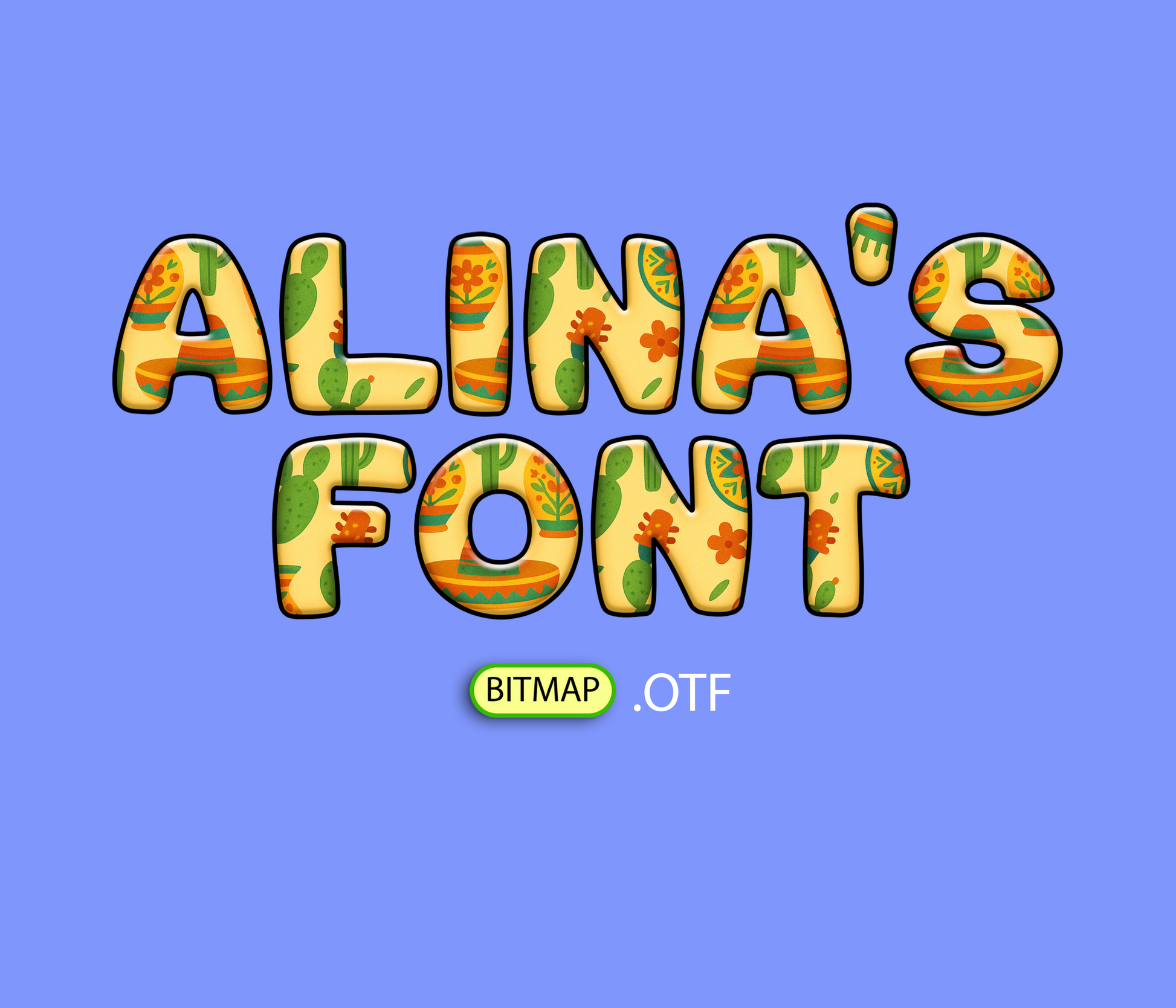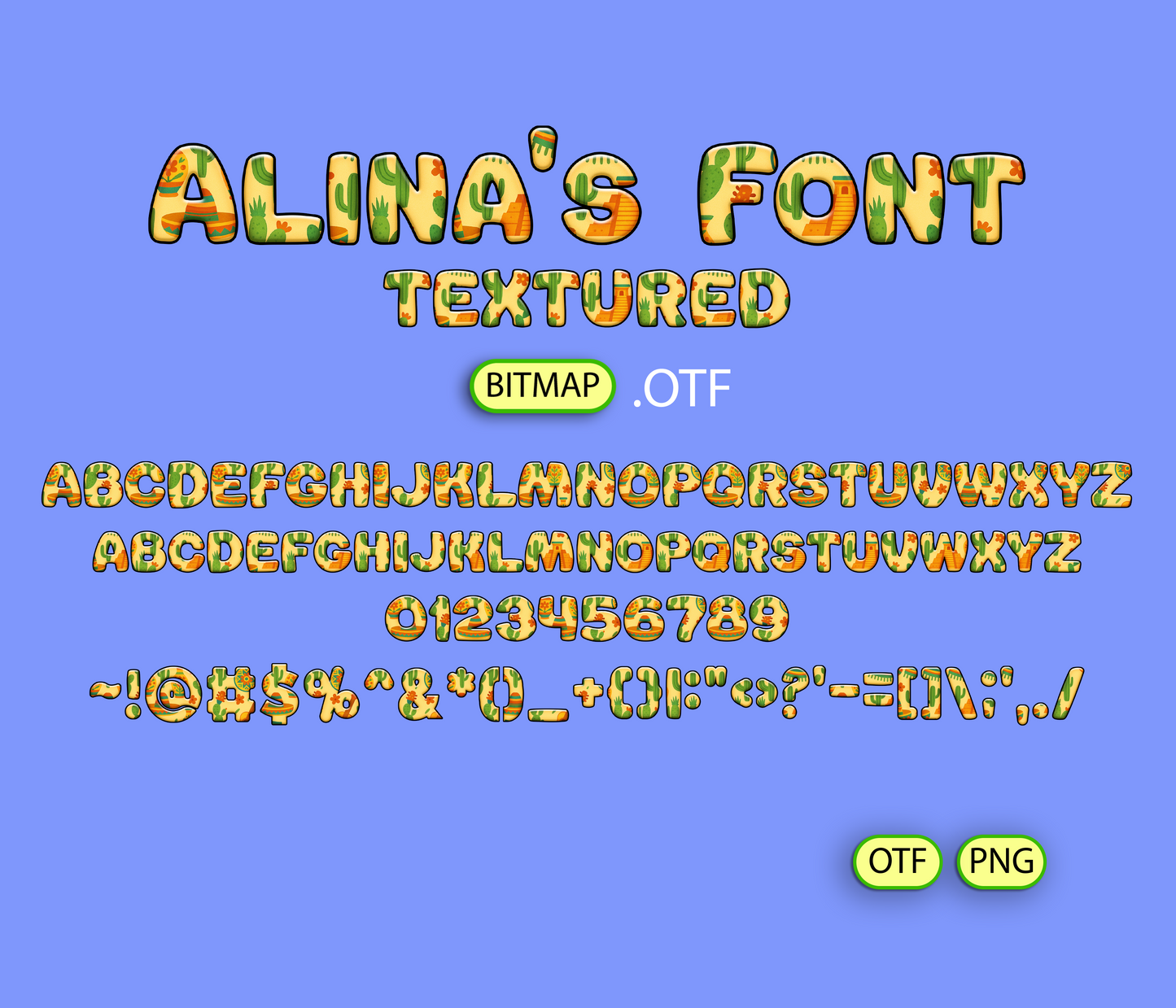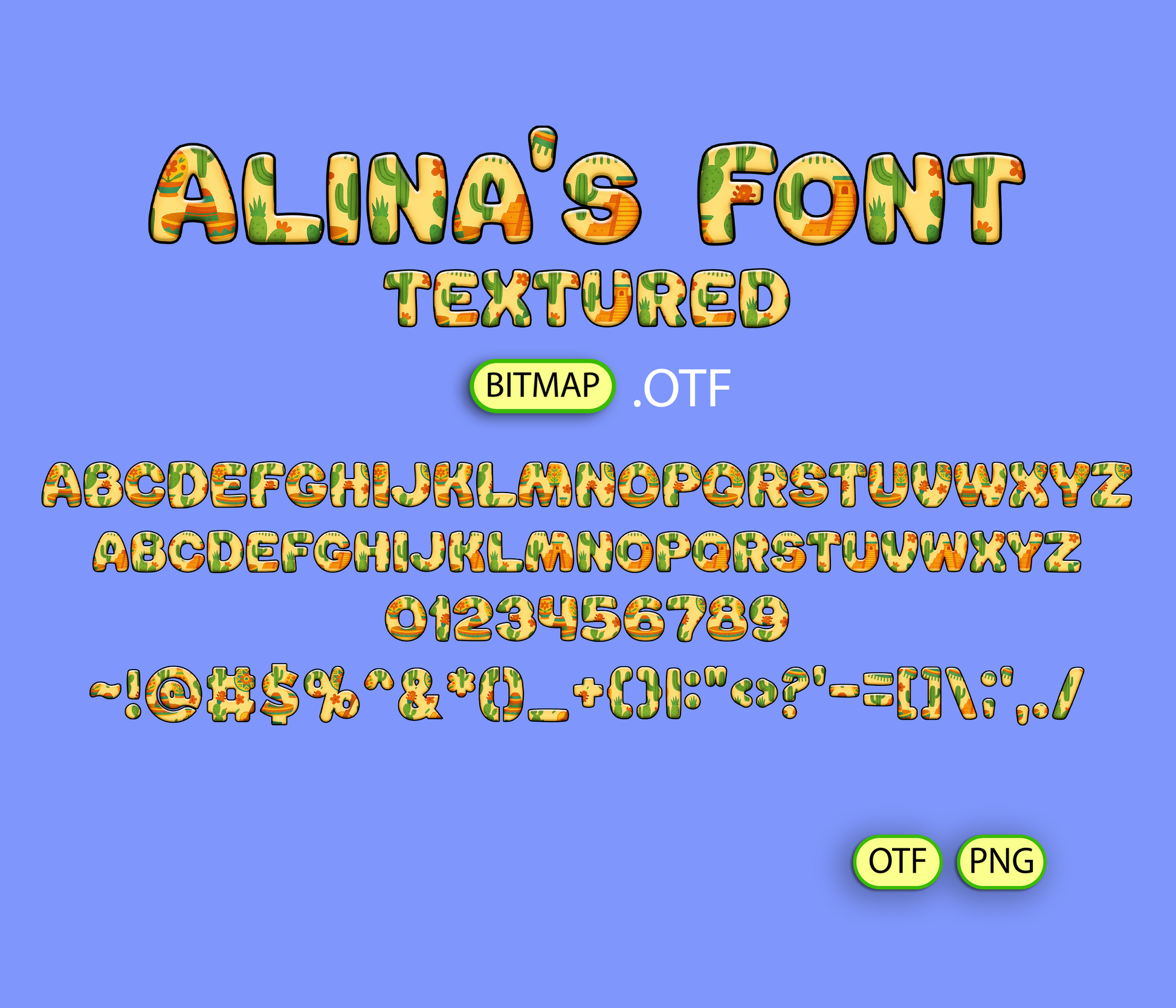
Aztec Sol Pattern Font
Aztec Sol Typeface Textured
Discover the magnificent legacy of Mexico's ancestral civilizations with our Aztec Sol Typeface, embodying the power of pre-Columbian artistry and colonial grandeur. Crafted for authentic eateries, heritage brands, celebration organizers, and design specialists, this font channels the bold, ceremonial spirit of ancient pyramids and vibrant marketplaces into your creative endeavors. Develop striking displays, Latin-themed merchandise, or multimedia content with the rich, cultural depth of talavera pottery and baroque cathedrals.
Our Aztec Sol Typeface showcases elaborate, cathedral-inspired details and commanding letterforms that mirror the majestic yet folkloric essence of Mexican artistic expression. Outstanding for:
Our Aztec Sol Typeface provides both ornamental and streamlined variations, guaranteeing smooth functionality across all design platforms, including Canva. This adaptability enables effortless integration for creators at every expertise level.